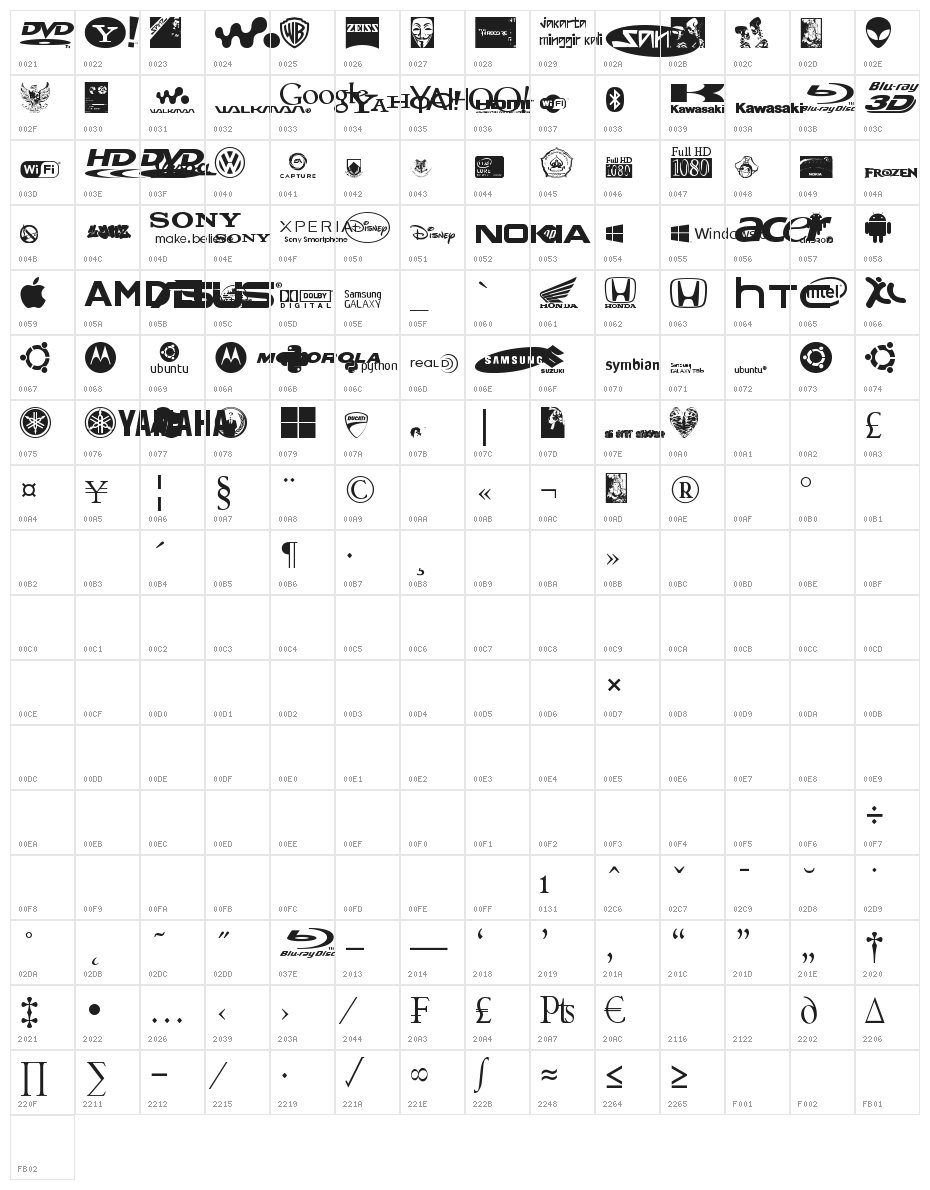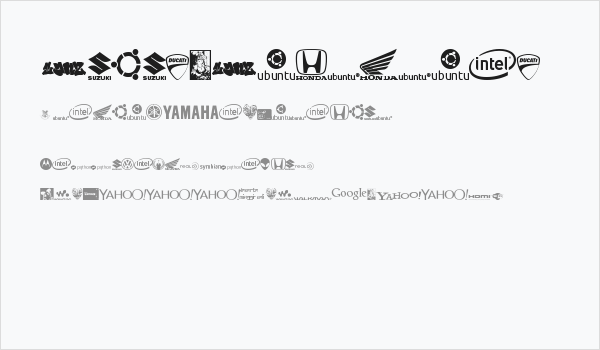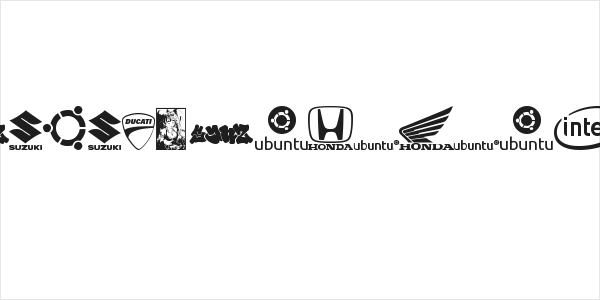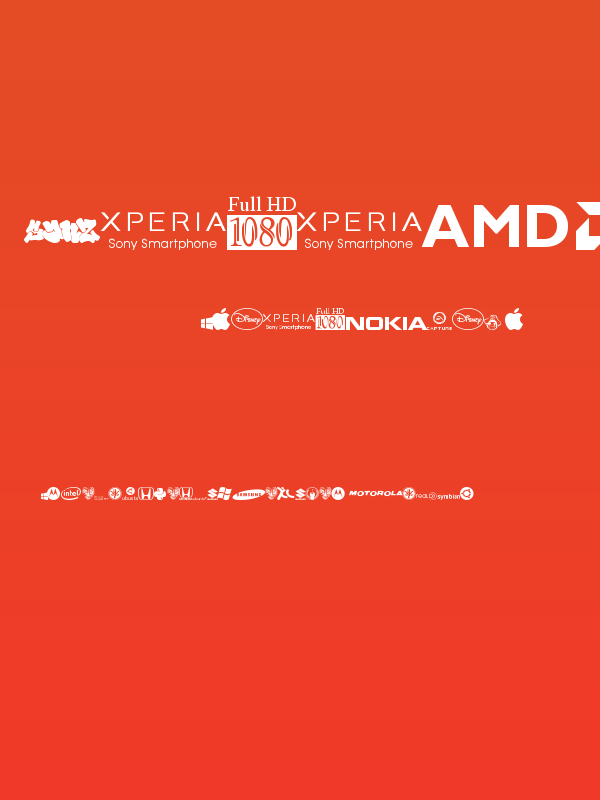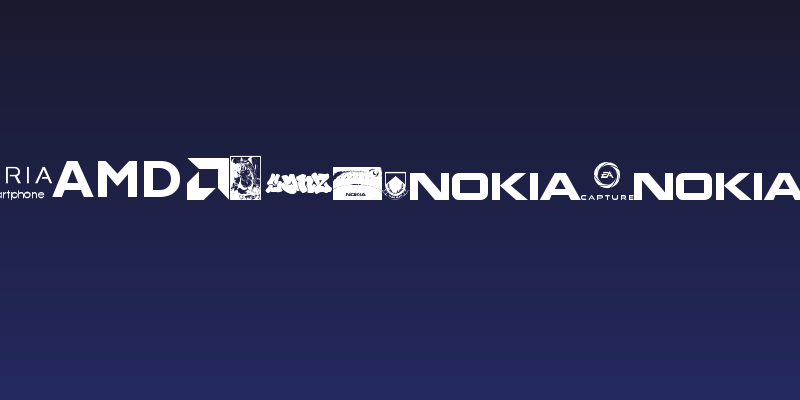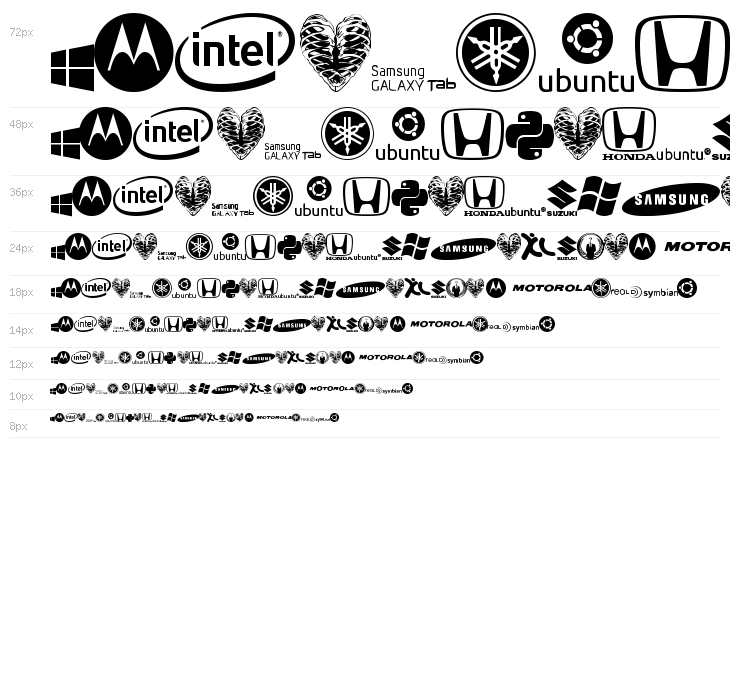
Logoz-Librariez Font
Logoz-Librariez Description
A decorative and eclectic collection of glyphs and letterforms inspired by various well-known brand logos, featuring a wide range of styles, weights, and iconography. The characters are highly stylized, with many incorporating unique design elements, shapes, and motifs from their respective brands, resulting in a visually diverse and playful appearance.
| Overall Style | Decorative, Eclectic, Playful |
| Use Case | Logos, Posters, Headline graphics, Themed artwork |
| Proposed Projects | Brand parody designs, pop culture posters, themed event graphics, novelty merchandise, creative headers. |